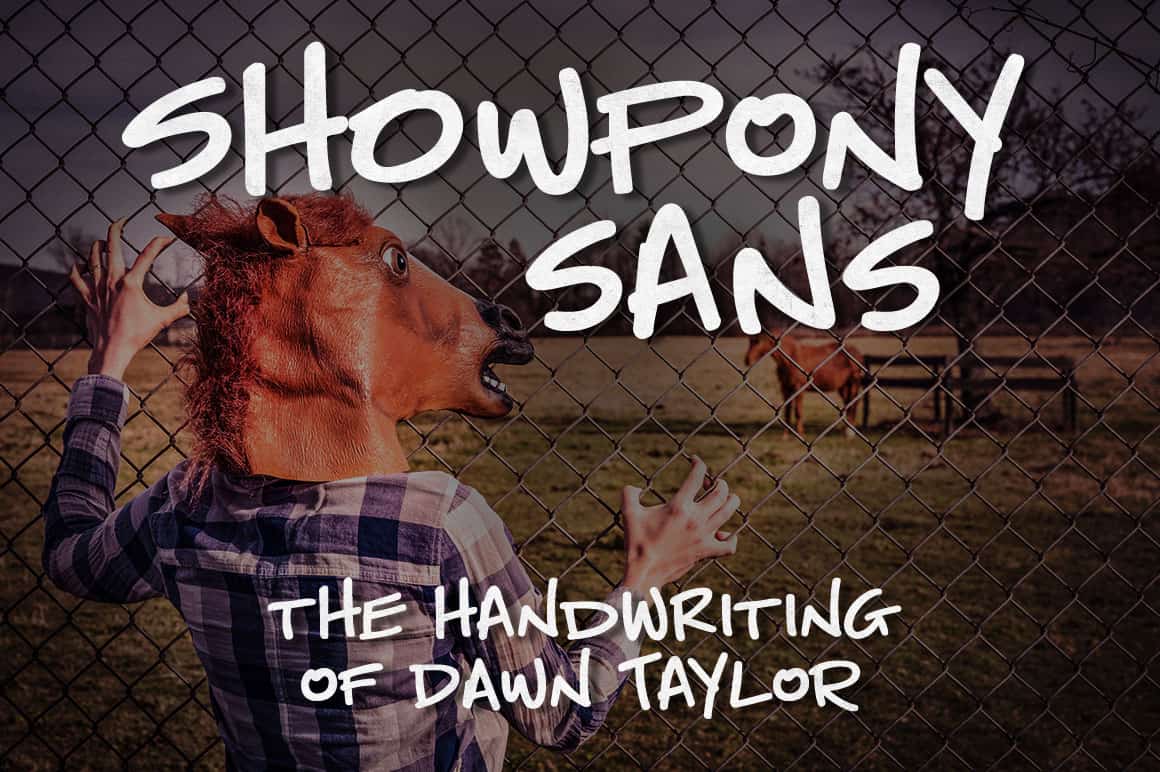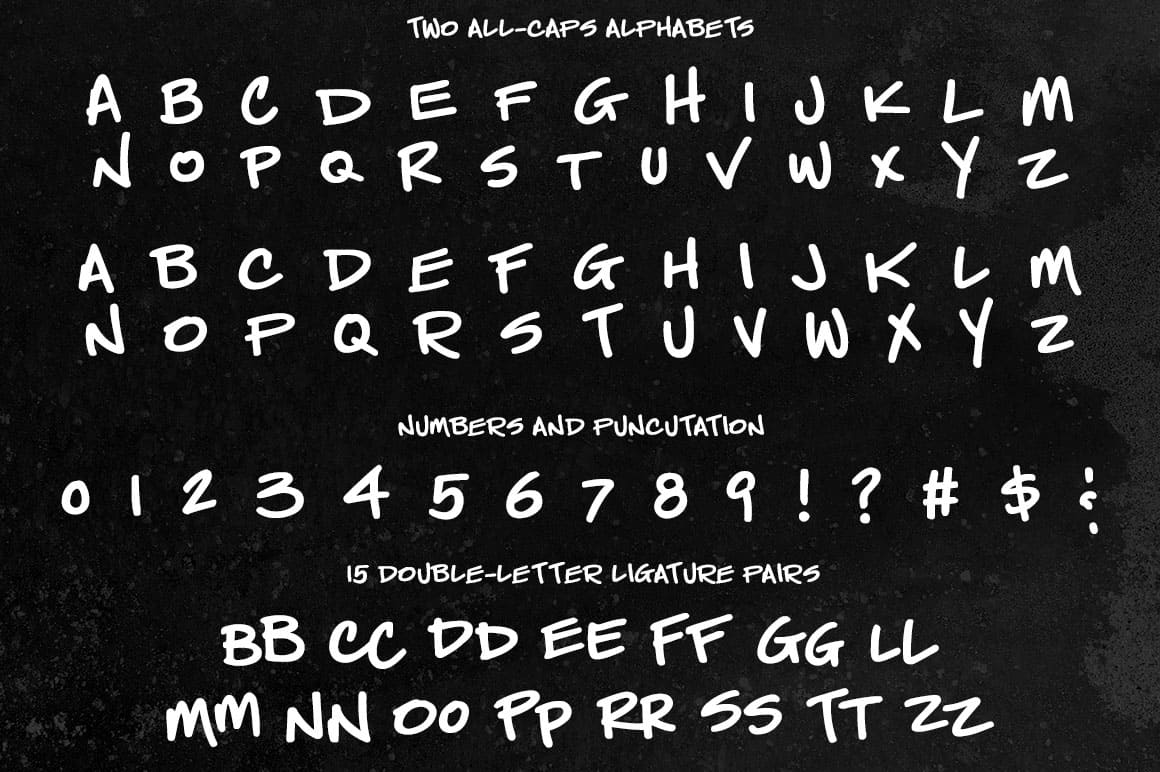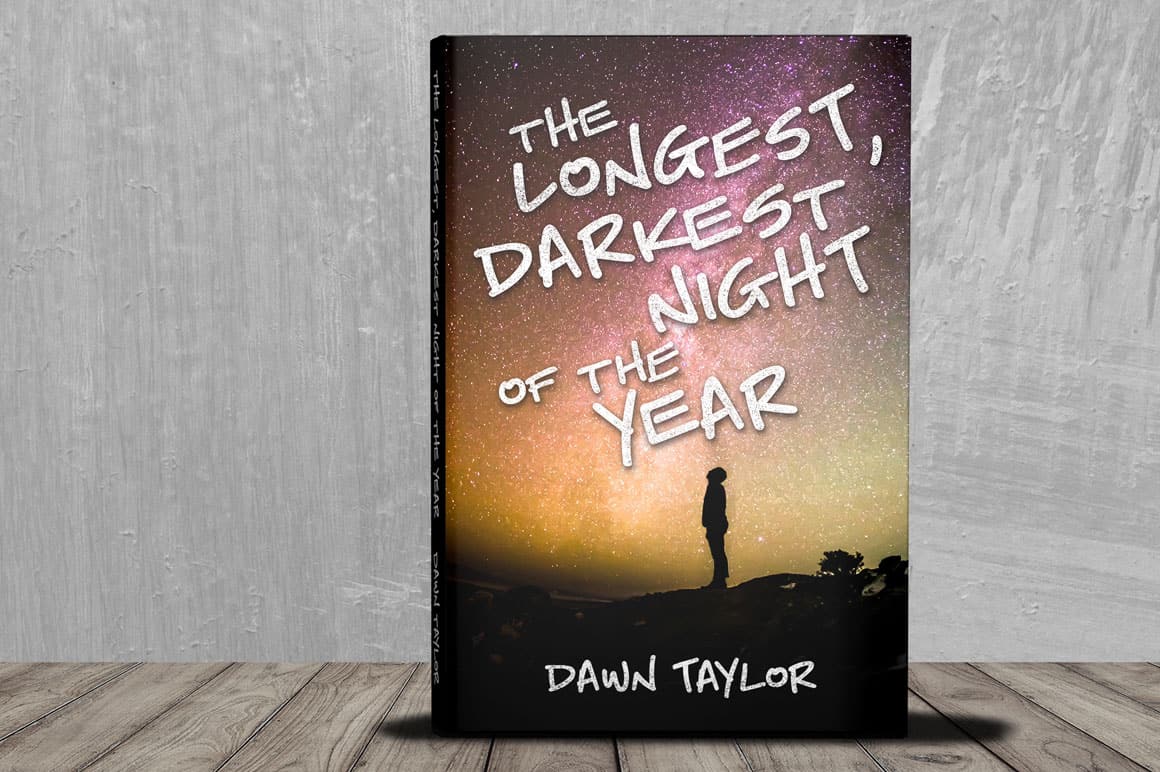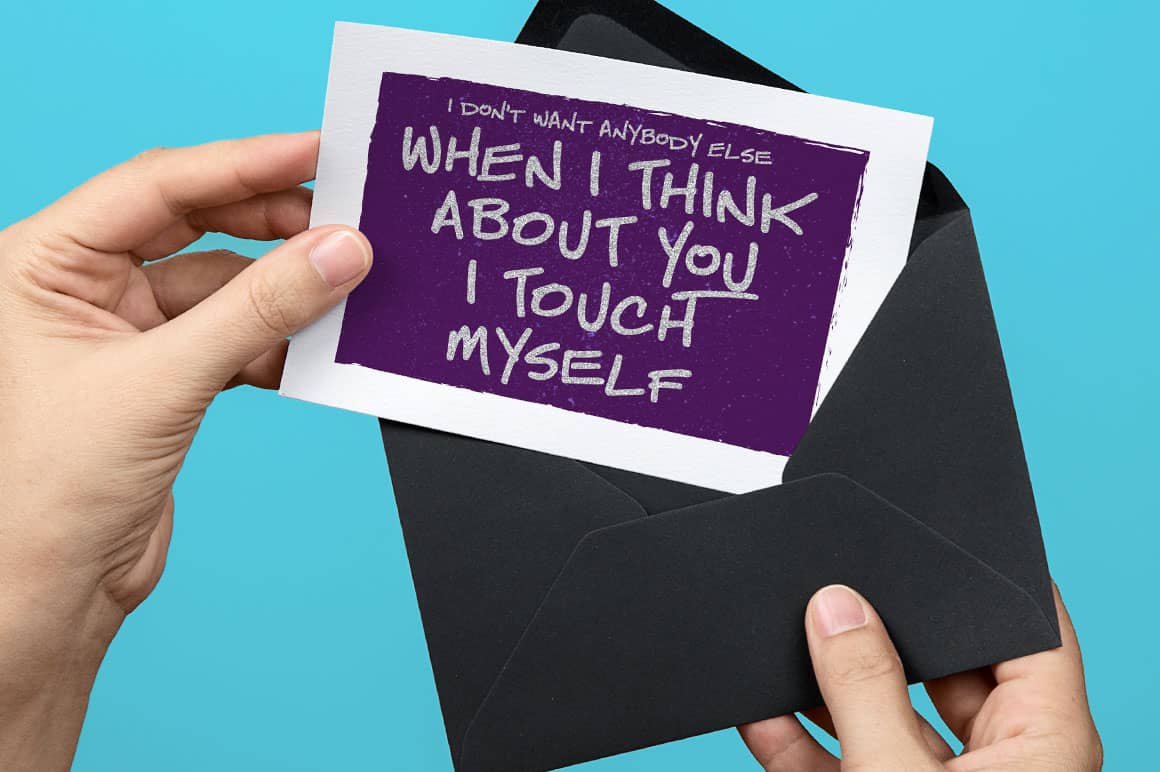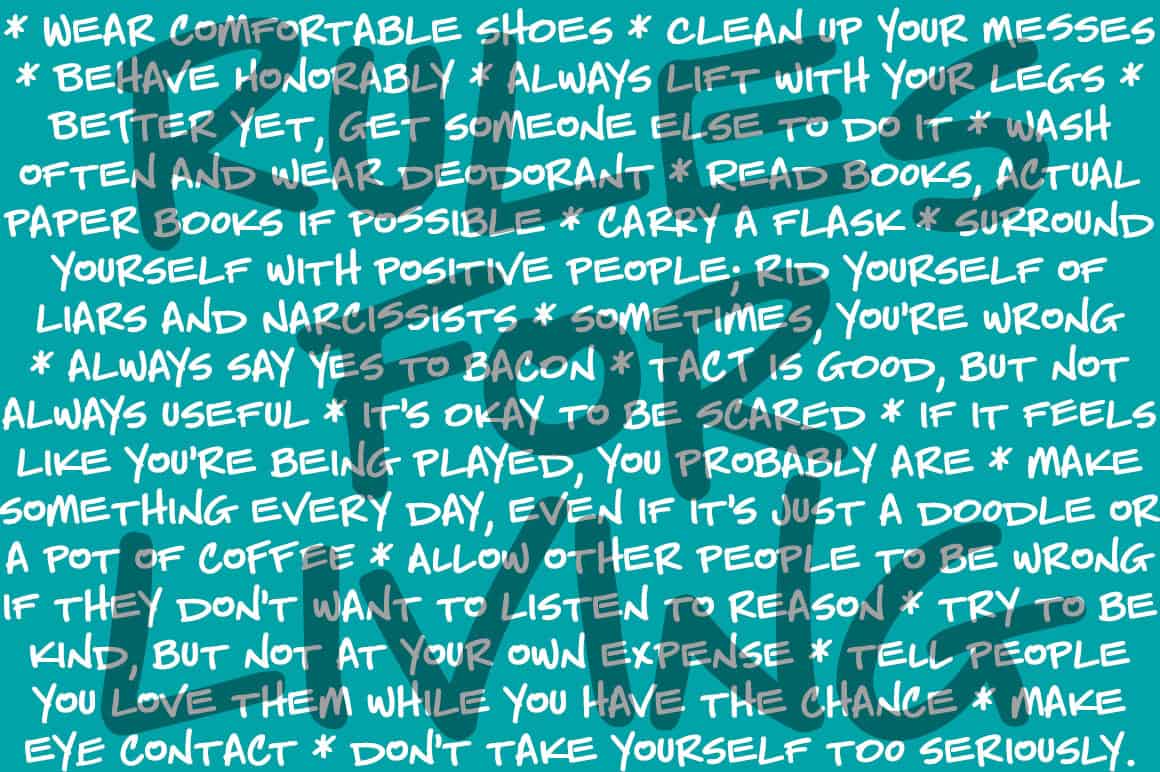
Showpony Sans
Showpony Sans is a font made from the all-caps block handwriting of my friend Dawn Taylor. Great for 1,001 household uses!
My friend Dawn posted a picture recently of her “Rules for Living,” and I looked at it and thought, “Now that’s some damn fine printing.” So I asked if I could make a font from her handwriting, and she said yes!
This font contains two full all-caps alphabets, so you can mix and match for variety. It also has 15 common double-letter ligature pairs (set to the lowercase letters), numbers, lots of punctuation, and over 200 accented characters for multi-language support. Plus two underline swashes mapped to the greater-than and less-than keys.